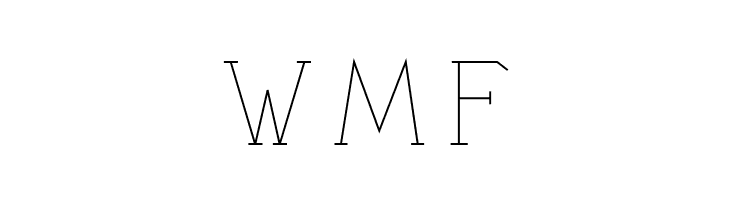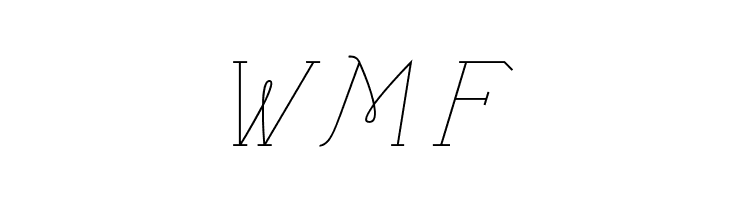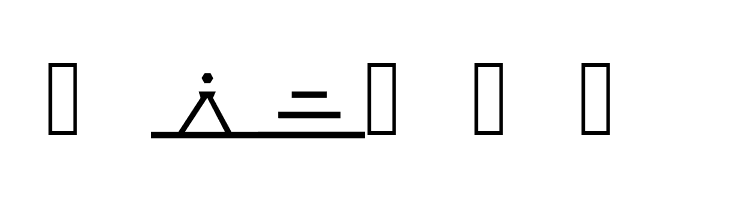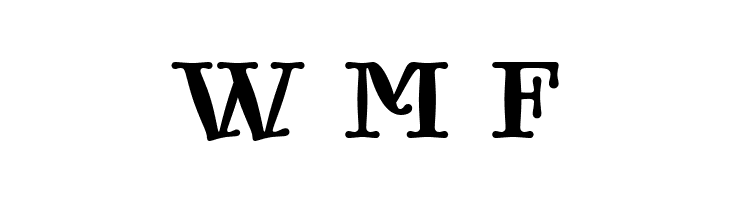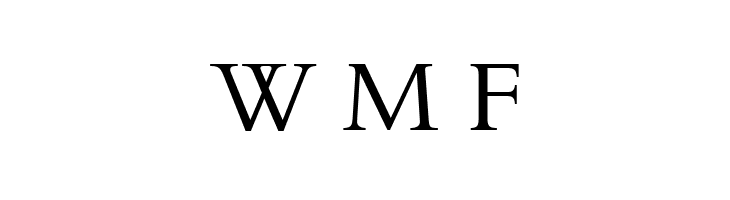
A modern sans-serif italic font with a sleek and dynamic style.
A modern, thin sans-serif font with a sleek and minimalist design.
A modern, light, italic sans-serif font with sleek, fluid lines.
A thin, elegant font with high contrast and refined strokes.
An elegant, italic script font with graceful curves and high contrast.
A futuristic, abstract font with geometric lines and wide spacing.
A classic serif font with elegant, well-defined characters and prominent serifs.
A bold serif font with a classic and authoritative style.
A classic serif font with elegant, sharp serifs and balanced stroke contrast.